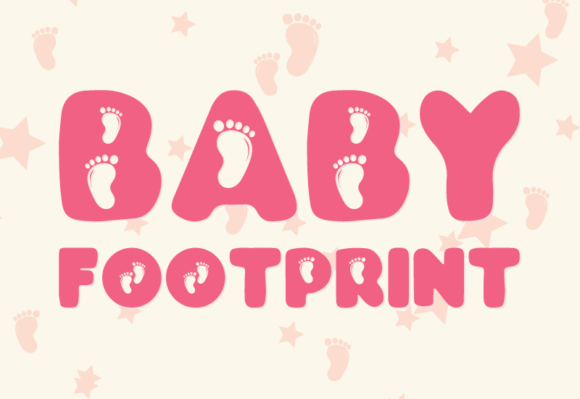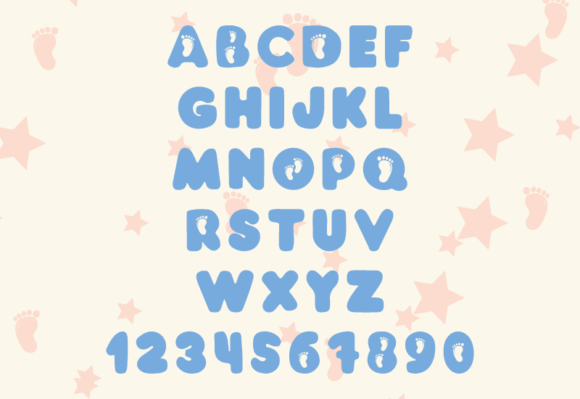
The Irresistible Charm of Childhood
Do you remember the joy of scribbling with crayons on a sunny afternoon, the unbridled laughter that erupted as you chased after butterflies, or the thrill of discovering a new playground? Those carefree moments of childhood are etched in our memories forever, and for designers, capturing that essence is a challenge worth taking.
Enter the “Baby Footprint” Font, a meticulously designed masterpiece that embodies the uninhibited spirit of youth. This font is a tribute to the delightful doodles of a child’s playful hand, inviting you to revisit the innocent joys of childhood. With its vivacious and robust characters, “Baby Footprint” Font is a valuable addition to any designer’s toolkit, perfect for projects that demand a sense of playfulness and whimsy.
Baby Footprint Font Key Features
- Font Style: A unique, hand-drawn font featuring baby footprints, ideal for personal and family-related projects.
- Character Count: Includes a range of characters, including uppercase and lowercase letters, numbers, and punctuation marks, allowing for creative expression.
- Unique Characteristics: Each character is carefully crafted to resemble a baby footprint, adding a personal and emotional touch to any design.
Baby Footprint Font Review
As a designer, I was excited to dive into the Baby Footprint Font. Overall, I’d say it’s a cute and unique font that’s sure to grab attention.
- ✨ Customizable: The font comes with a range of customization options, allowing you to tailor it to your specific needs.
- ✨ Versatile: It’s perfect for a variety of projects, from baby shower invitations to nursery decor.
- ✨ Adorable: The footprints are undeniably cute, making it a great choice for projects that require a playful touch.
- ⚠️ Limited scalability: While the font is adorable at small sizes, it can become distorted and blurry when scaled up.
- ⚠️ Limited character set: The font only includes a few basic characters, making it difficult to use for more complex projects.
- ⚠️ Overuse: The font’s popularity can make it feel overused, which may detract from its impact.
While the Baby Footprint Font is a fun and unique addition to any design project, its limitations should be carefully considered. With a bit of creativity and planning, it can be a great choice for the right project. However, it may not be the best fit for more complex or professional projects.
Common use cases for the Baby Footprint Font include:
Baby shower invitations and decorations
Baby announcements and birth certificates
Personalized baby gifts and keepsakes
Use the Baby Footprint Font to add a touch of whimsy and personality to your designs.
Alternatives to Baby Footprint Font
Great Vibes is a beautiful, handwritten font that resembles the Baby Footprint Font in terms of its elegant and cursive nature. It’s perfect for use in wedding invitations, baby shower invitations, and other events where a touch of whimsy and romance is desired. Unlike Baby Footprint Font, Great Vibes has a more subtle and refined feel to it, making it suitable for a wider range of applications.
Algerian
Algerian is a classic, elegant font that shares some similarities with Baby Footprint Font in terms of its flowing lines and cursive feel. It’s ideal for use in formal events, such as weddings, anniversaries, and graduations. Unlike Baby Footprint Font, Algerian has a more traditional and sophisticated feel to it, making it suitable for formal invitations and other materials.